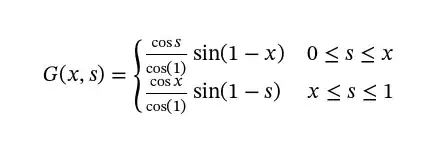
I was trying some fonts from this post which-opentype-math-fonts-are-available
Compare this image (will show MWE below), comparing STIX and STIX two and the default latex font. Notice how the denominator is touching the math in the line below it
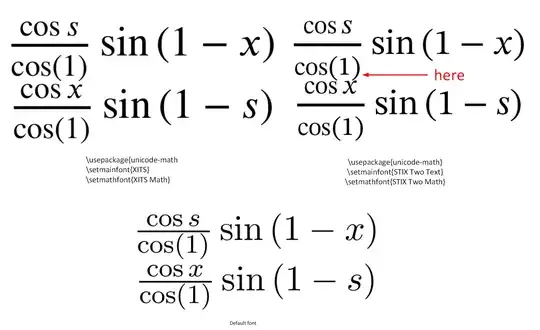
Here is MWE
This below is the default Latex font:
The question is, is there is something one can do to fix this? Is this a bug in the font? I find it harder to read when the letters are touching each others. Otherwise, it is a nice font. I think they put too much space between the fraction line and the denominator. With the default font, the spacing is much better.
• it doesn't look great the parameters can be tweeked a bit but (as has been said multiple times before) \left( 1-x\right) is bad input and would be better as (1-x) – David Carlisle Apr 14 '18 at 09:51
• to +1 @DavidCarlisle: the spacing between G and opening parenthesis looks very bad in both tests due to bad \left(x, s\right) input... –  Apr 14 '18 at 11:26
• @DavidCarlisle I removed the \left( and \right) but the output still looks the same. – Nasser Apr 14 '18 at 16:35
• as a workaround you could increase baselineskip or arraystretch when using stix 2 – David Carlisle Apr 14 '18 at 16:40
I'd be more worried about the distance of numerator and denominator from the fraction line, which I find excessive with STIX Two Math. – egreg Apr 14 '18 at 18:07
The default spacing is rather cramped
You could open up arrays when using stix 2 by adding
to the preamble
Although really array is not suitable for this kind of layout, it uses inline math not display and is designed for setting arrays and matrices, if you put \arraystretch back to the default and use cases then you get
Or perhaps with stix2 you should increase baselinestretch slightly, adding
gives